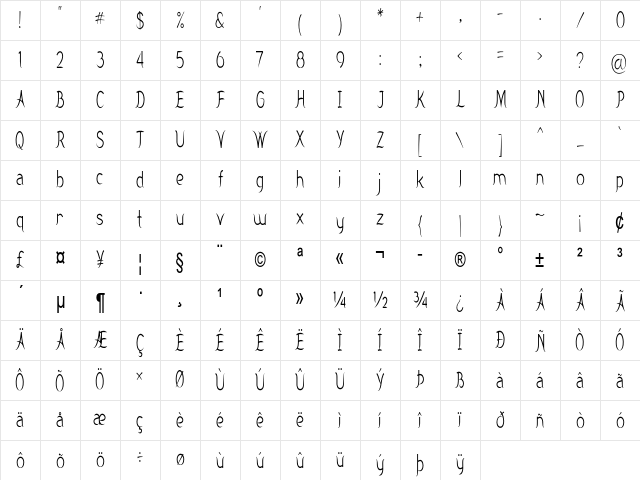
Palavio is a composed and adaptable typeface that performs quietly and consistently across a wide range of design contexts. Its narrow stance lets it pack a punch even in space-constrained designs.